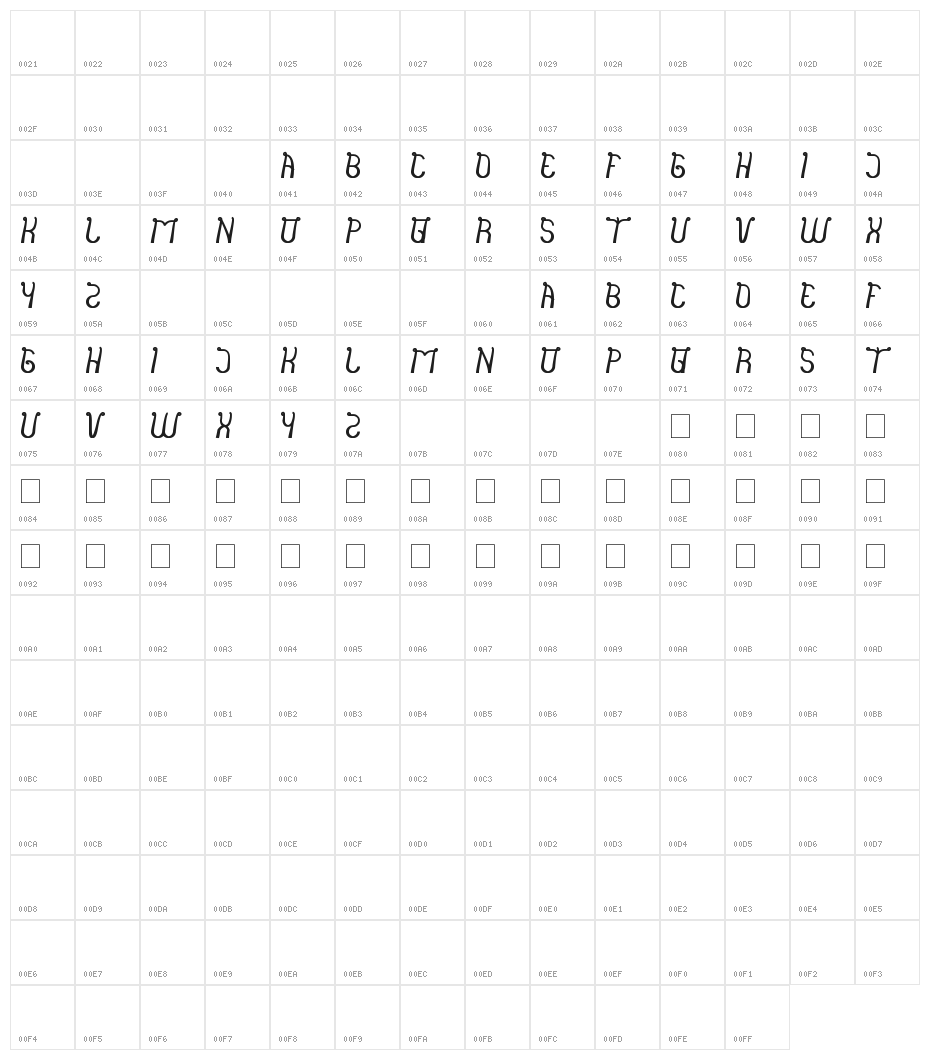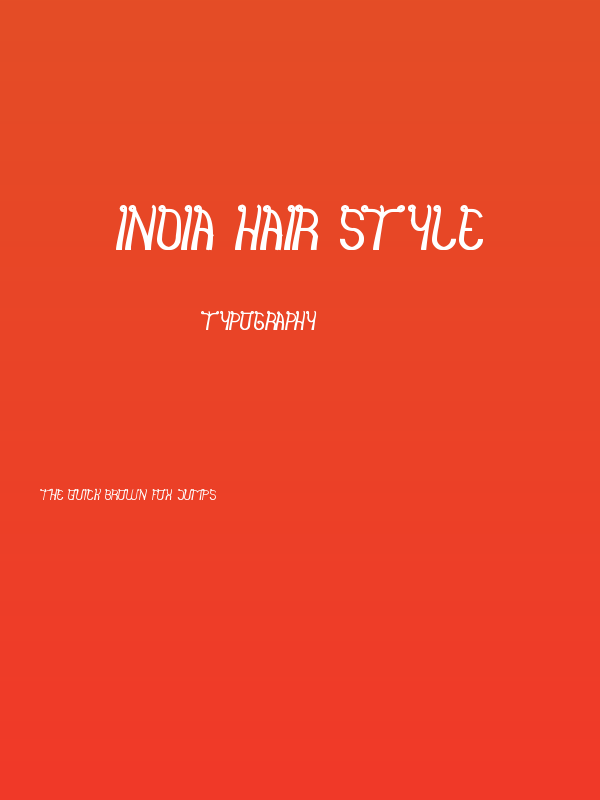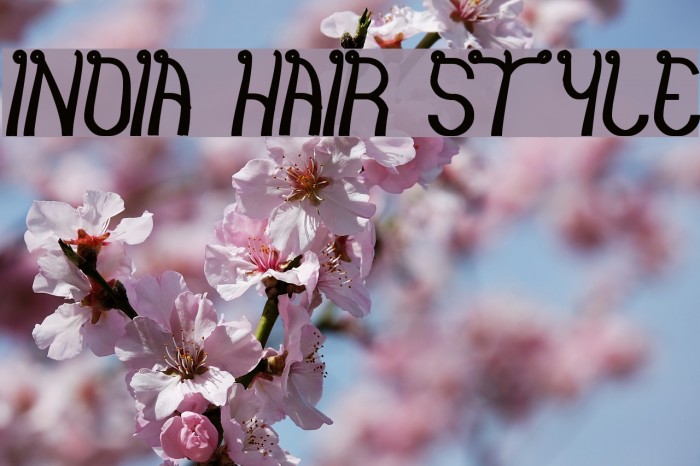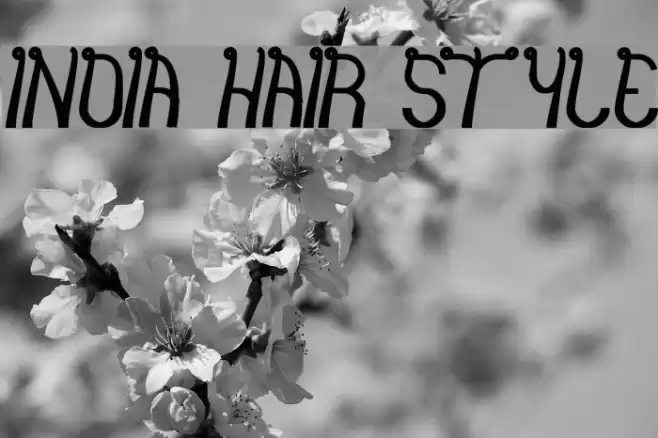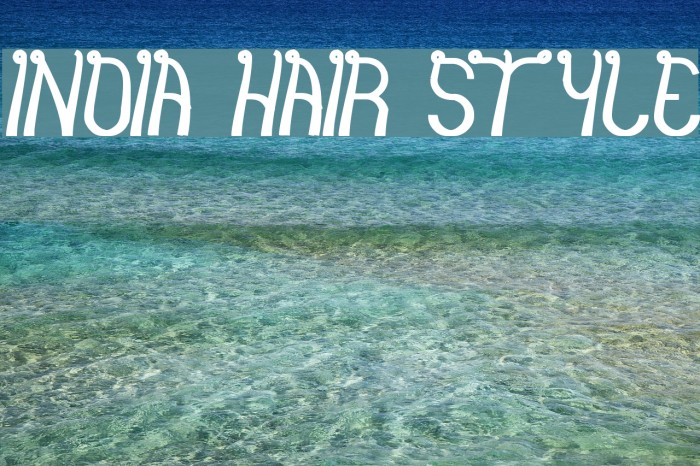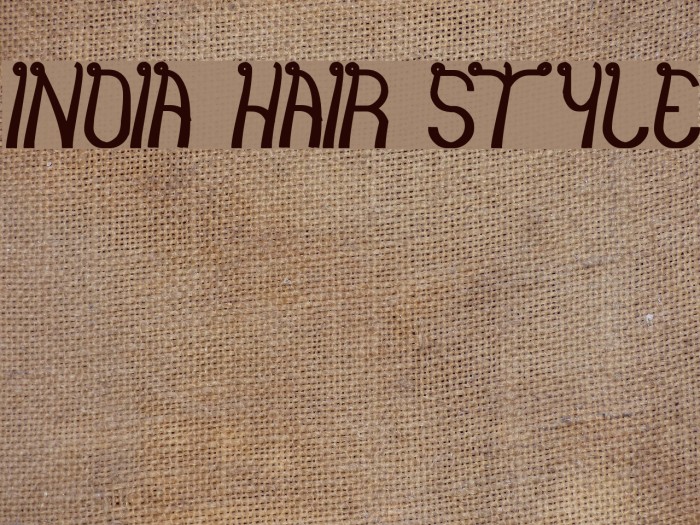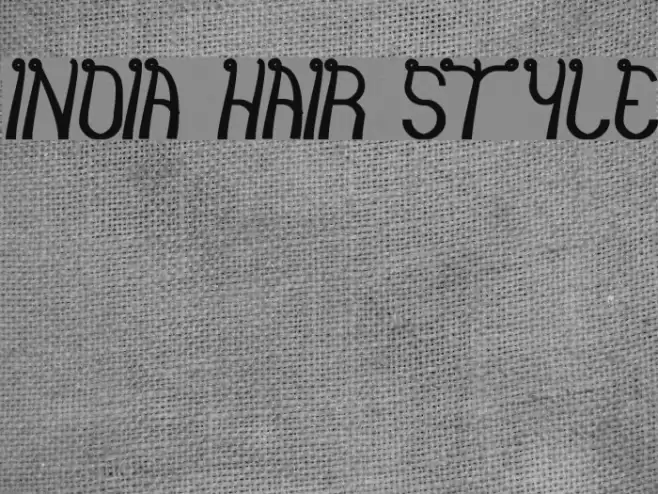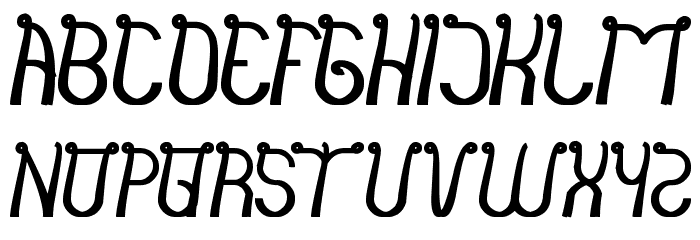
india hair style Font
india hair style Description
This font features a unique and playful design with a decorative flair. Each character is adorned with small loops or curls, giving it a whimsical and artistic appearance. The strokes are consistent in thickness, providing a uniform look across all letters. The uppercase and lowercase letters maintain a cohesive style, with the lowercase mirroring the playful loops of the uppercase. The numbers and special characters also follow this design, ensuring a harmonious overall appearance. This font is ideal for creative projects that require a touch of fun and individuality.
| Use Case | Logos, Headlines, Posters |
| Proposed Projects | Perfect for children's books, creative posters, playful branding, and artistic invitations. |